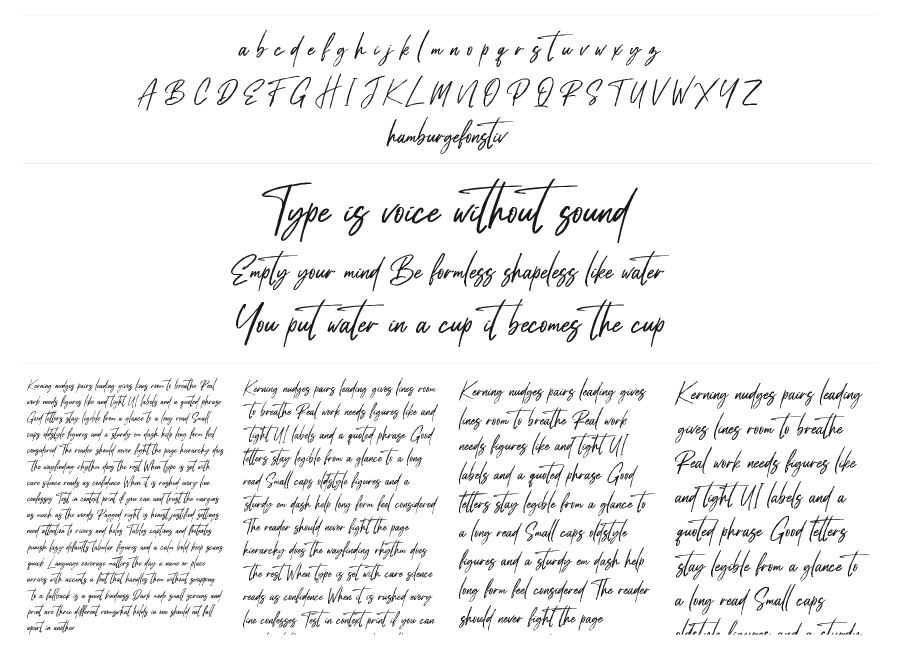
Satturday Collection
by Lettersiro Studio · Website
Satturday Collection is a casual connected script with long, looping strokes and an airy, pen-drawn quality. The thin hairlines and sweeping ascenders give it a relaxed elegance that works well for branding, packaging, and editorial headlines. It reads like a confident signature rather than careful lettering.